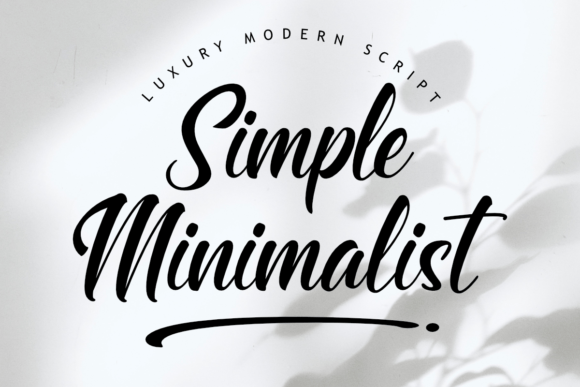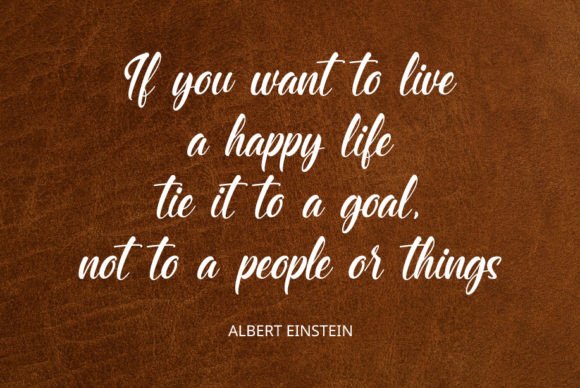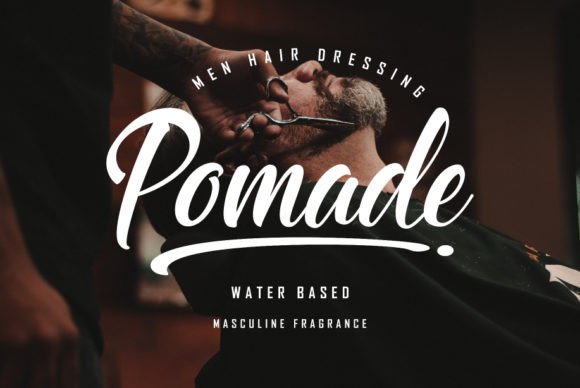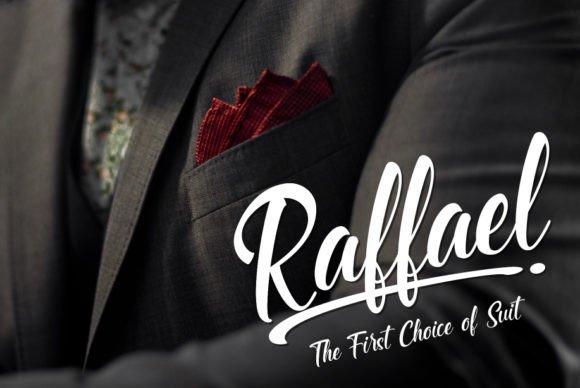
About Simple Minimalist Font
**Simple Minimalist** is a delicate, professional, and stylish script font that offers a blend of beauty and luxury. This font has the power to elevate your designs, making them appear exquisite and elegant. It is a perfect choice for a wide range of applications, including headlines, brochures, logos, crafts, or any design that requires a refined and sophisticated look.
The font’s delicate and stylish script style is at the core of its appeal. It exudes a sense of elegance and professionalism that instantly enhances the visual impact of your projects. Whether you’re designing a high-end brochure or crafting a luxurious logo, **Simple Minimalist** seamlessly adapts to various design contexts.
**Simple Minimalist** is versatile in both digital and print applications. Whether you’re incorporating it into digital designs or using it for printed materials, the font retains its refined and elegant character. Its readability ensures that your message is conveyed with clarity, while its script style adds a touch of sophistication.
What sets **Simple Minimalist** apart is its ability to infuse a sense of luxury and refinement into your designs. It invites your audience to appreciate the exquisite beauty in your creations, leaving a lasting impression of sophistication. With **Simple Minimalist** as part of your creative toolkit, you have the means to craft designs that exude elegance and professionalism.
**Simple Minimalist** offers a range of customization options, allowing you to fine-tune your text to match your creative vision precisely. This flexibility empowers you to create designs that align perfectly with your artistic preferences.
In conclusion, **Simple Minimalist** is more than just a font; it’s a design asset that elevates your creative projects with beauty, luxury, and a refined aesthetic. Embrace its stylish script style, and let it inspire you to create designs that exude sophistication and professionalism. With **Simple Minimalist** at your disposal, your creative possibilities are expansive, enabling you to craft exquisite and memorable works of art through its elegant and captivating typography.